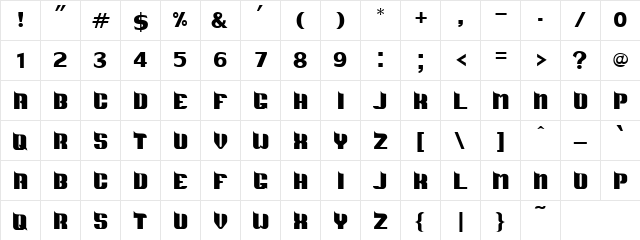
DS-Metropolis Normal
Design Context for DS-Metropolis Typeface
DS-Metropolis is a composed and adaptable typeface that performs quietly and consistently across a wide range of design contexts.